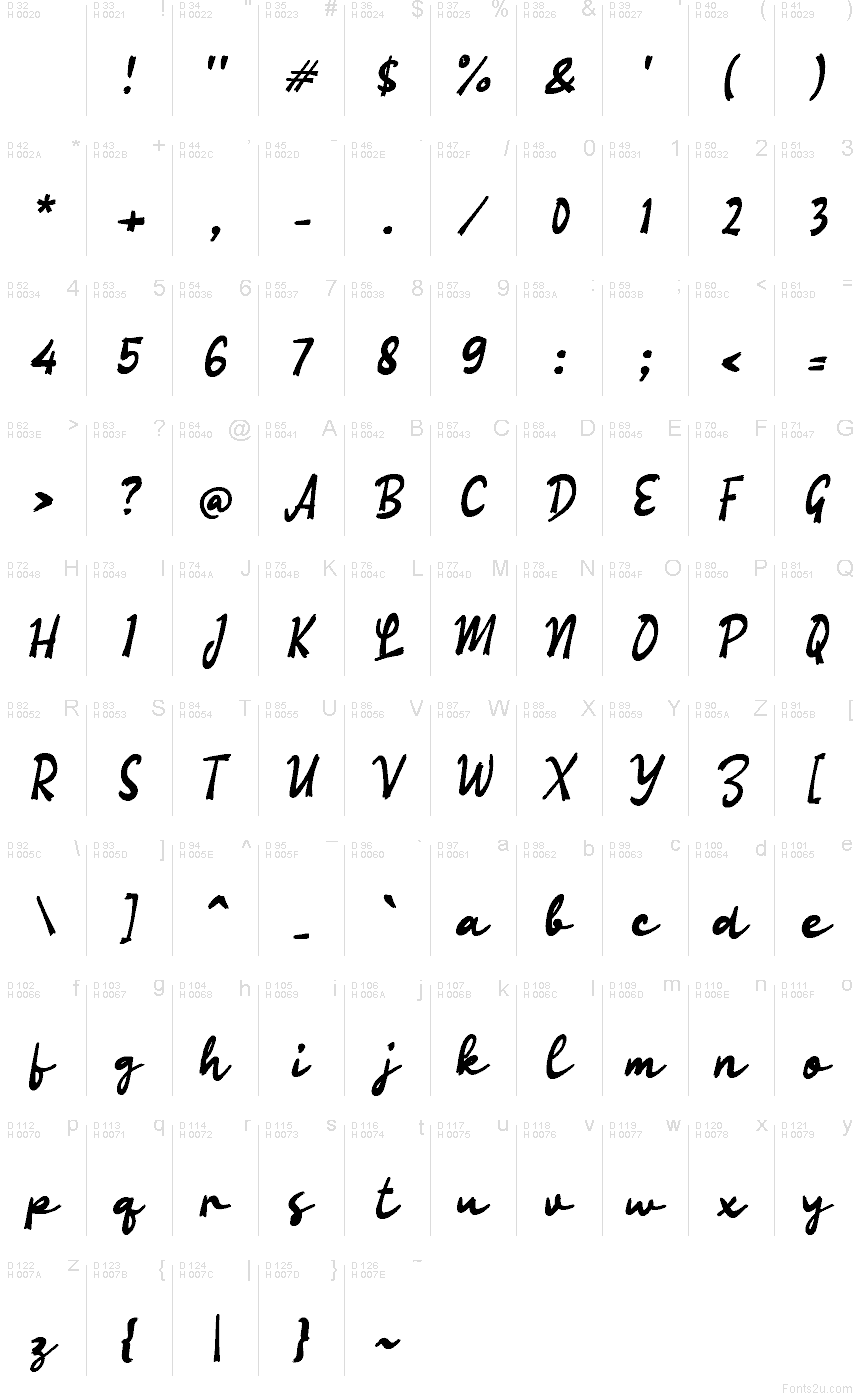
Oaendy Script
Oaendy Script font by wep is a free brush script font that captures the feel of quick, confident handwriting without sacrificing clarity. Letters flow in loose, inky strokes with just enough texture to feel hand-painted, yet the spacing stays tidy and easy to read at a glance. It’s casual, friendly, and energetic—like a note scrawled on kraft paper with a favorite marker.
Using Oaendy Script, you can bring warmth and personality to logos, quote graphics, social posts, product packaging, greeting cards, event flyers, and blog headers. This free font shines when used large, where its brushed edges and lively rhythm really show. For balance, pair it with a clean geometric sans serif for body text to keep your layouts grounded and readable.